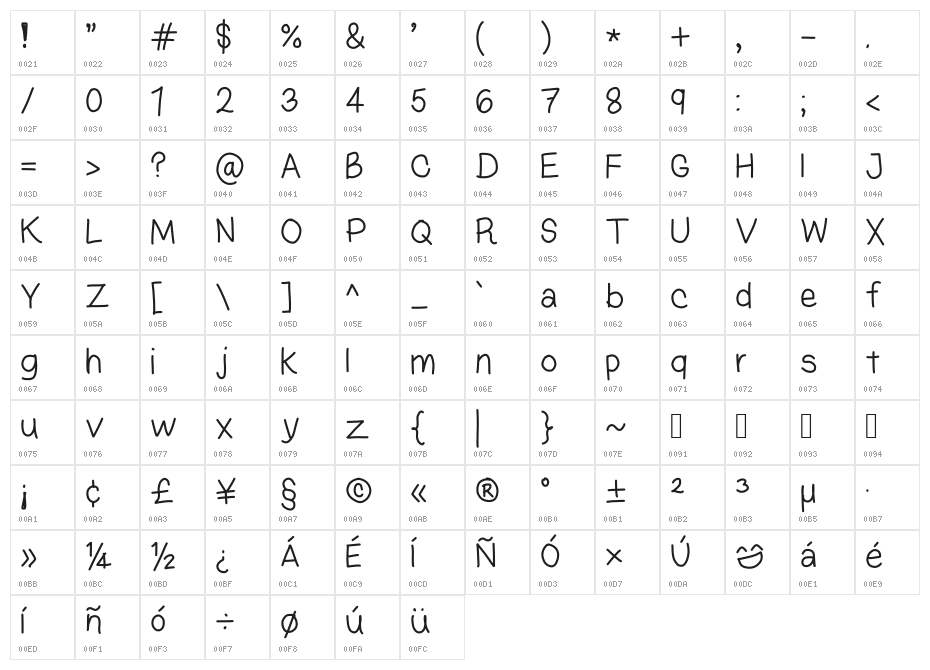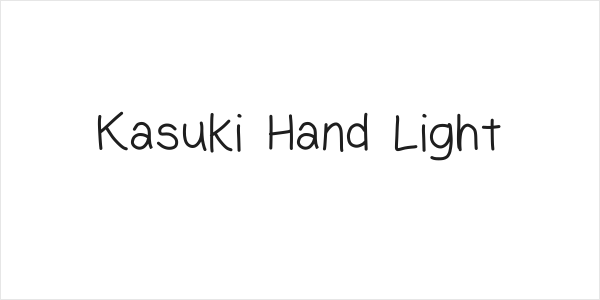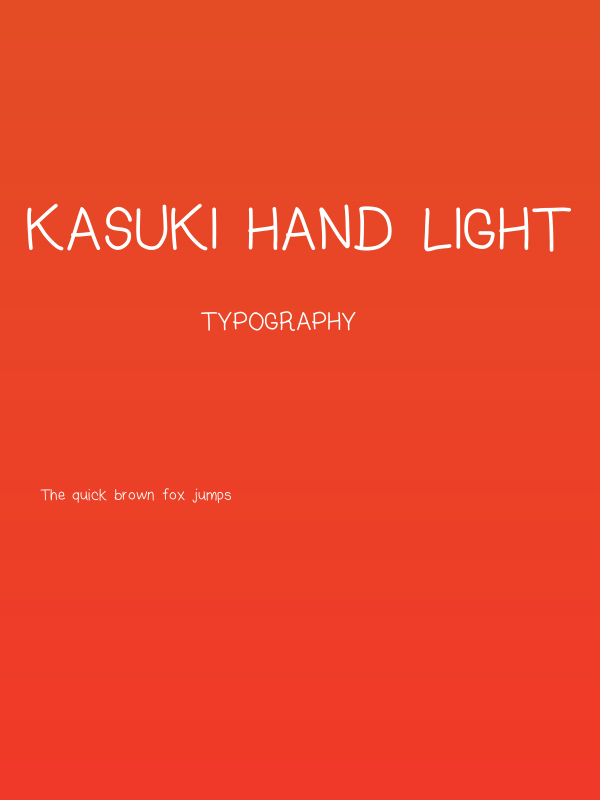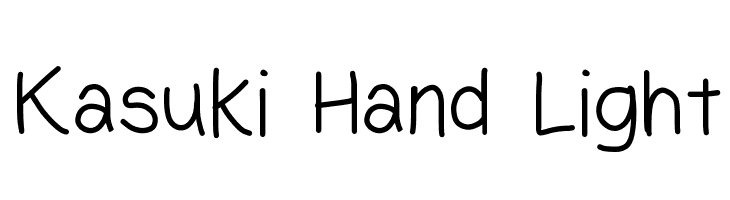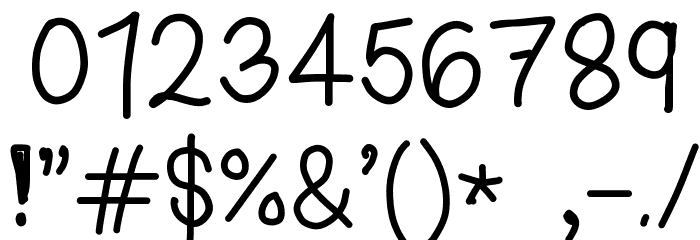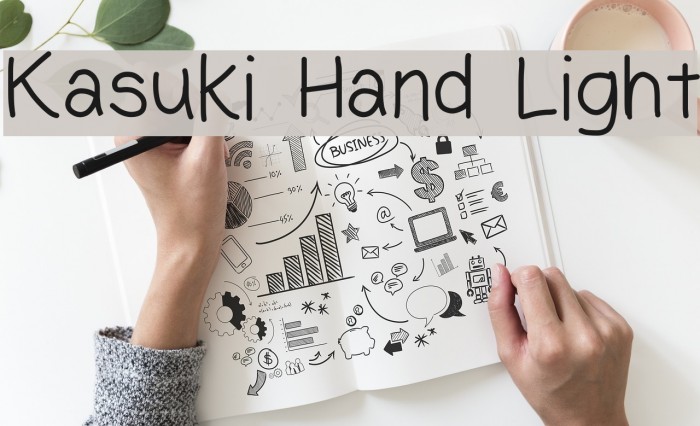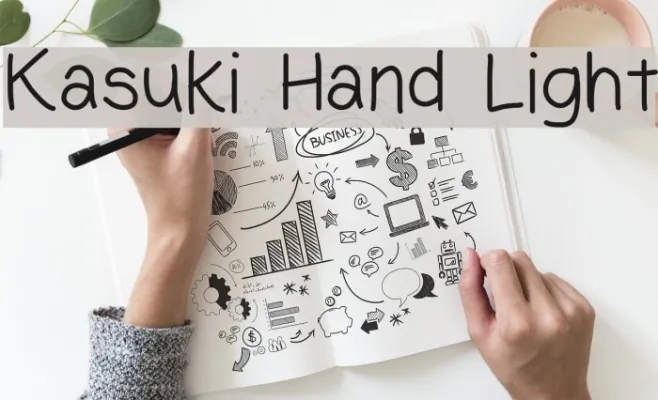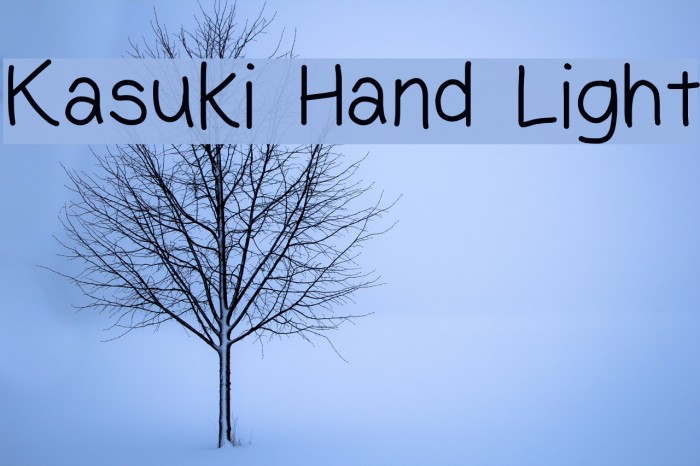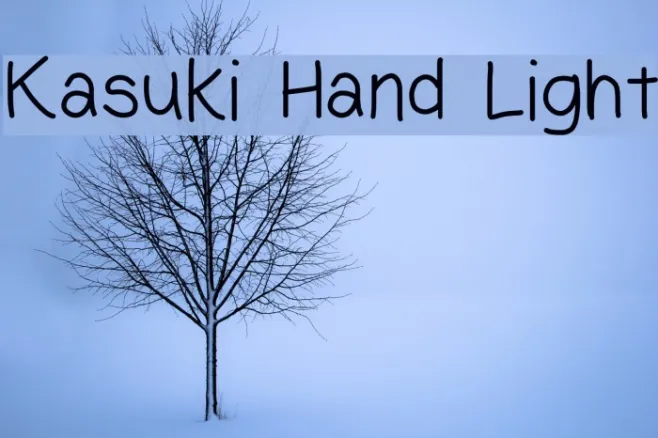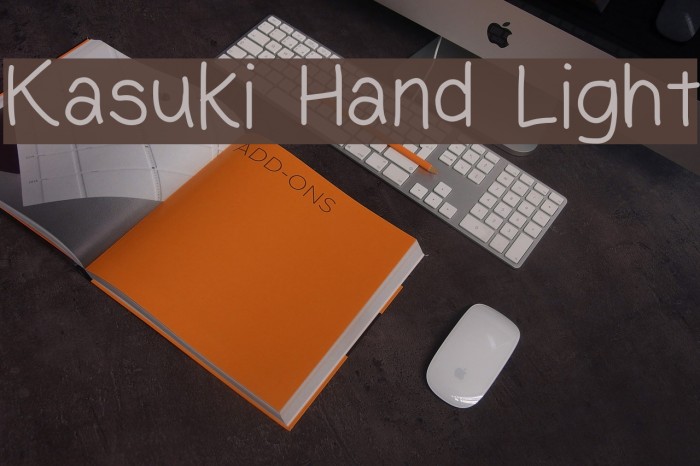
Kasuki Hand Light Font
Kasuki Hand Light Description
This font exudes a playful and casual handwritten style, characterized by its smooth, rounded edges and slightly irregular letterforms that mimic natural handwriting. The strokes are consistent in thickness, giving it a uniform appearance while maintaining a friendly and approachable vibe. The uppercase letters are slightly taller than the lowercase, adding a touch of whimsy. The numerals and special characters are designed to match the overall style, ensuring cohesiveness across all text elements. This font is perfect for projects that require a personal touch, such as greeting cards, invitations, or children's book illustrations.